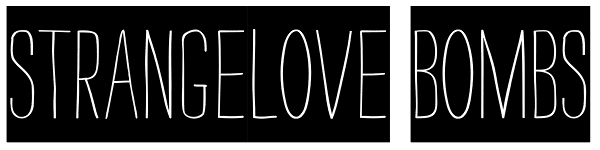
Strangelove
Strangelove is inspired by the title sequence of Stanley Kubrick’s movie Dr. Strangelove. The original titles were designed by Pablo Ferro, who is one of the most acclaimed film title designers, especially famous for his hand-drawn lettering. With...
Strangelove Bombs
Strangelove Text